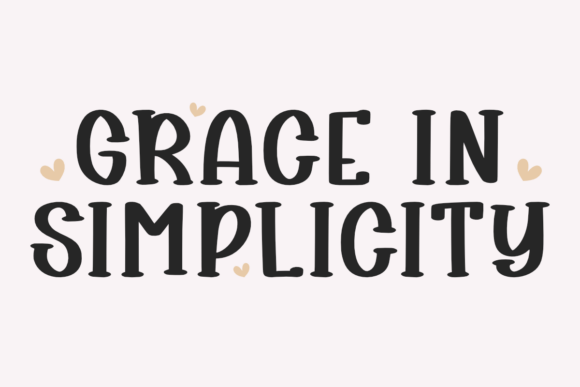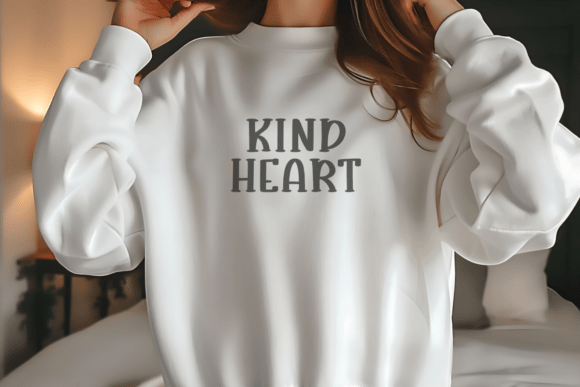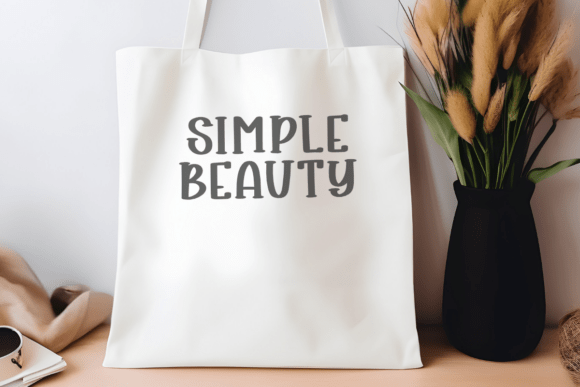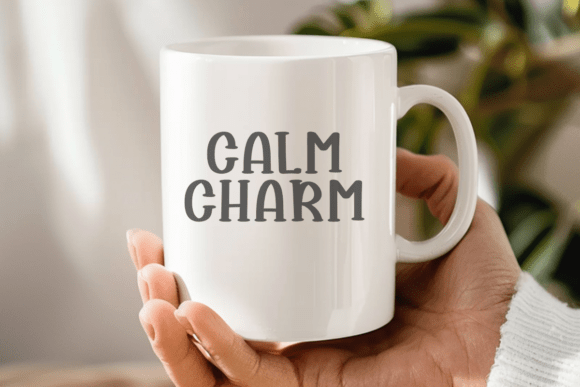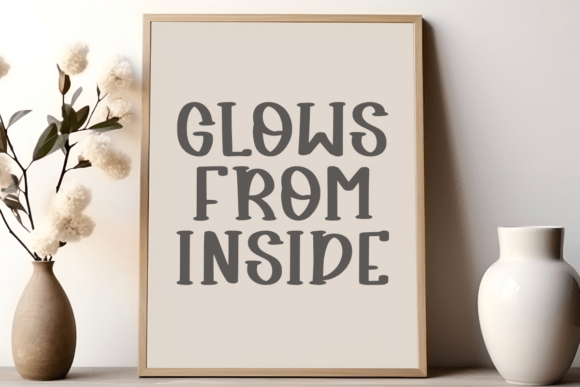
Introduction to Simple Woman Font
Simple Woman is a cute and playful slab serif font, perfect for planners, stickers, cards, quotes, and craft projects.
Ideal for creative moms who love DIY, journaling, and Cricut crafts .
Key Features of Simple Woman Font
Why Choose Simple Woman Font?
Simple Woman Font offers exceptional quality and versatility, making it a valuable addition to your design toolkit. Whether you’re creating for personal projects or commercial use, Simple Woman Font delivers professional results.